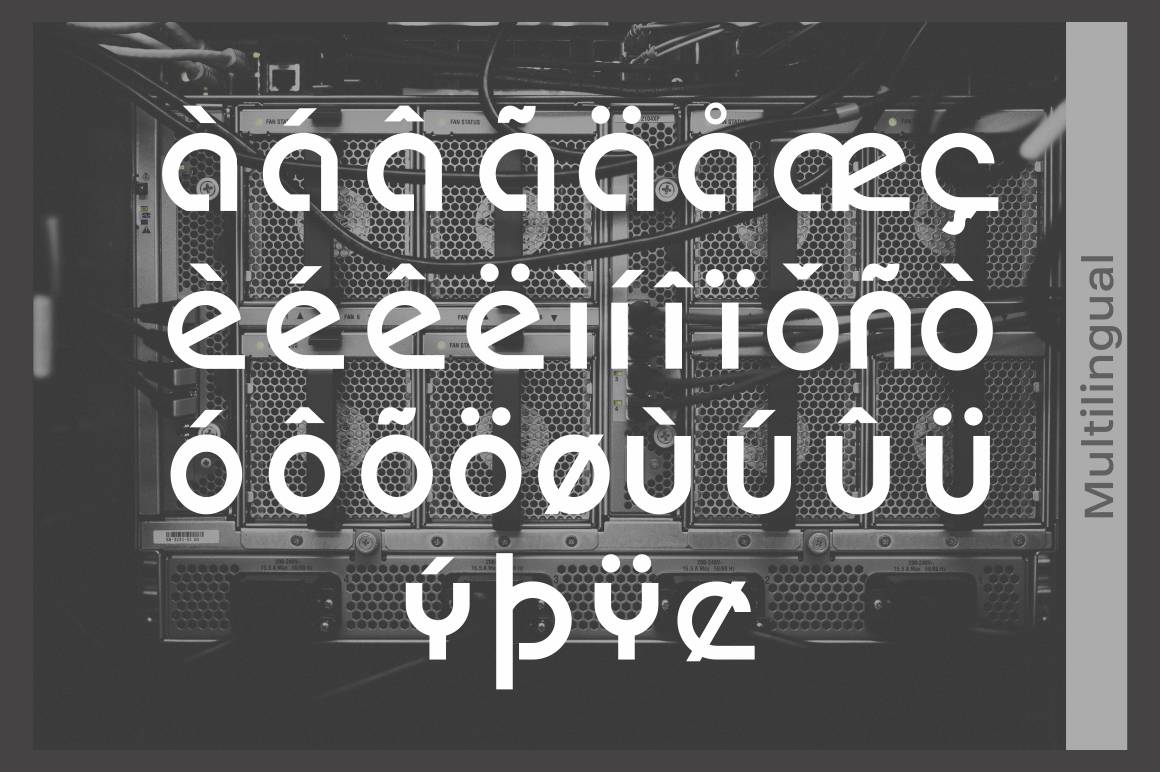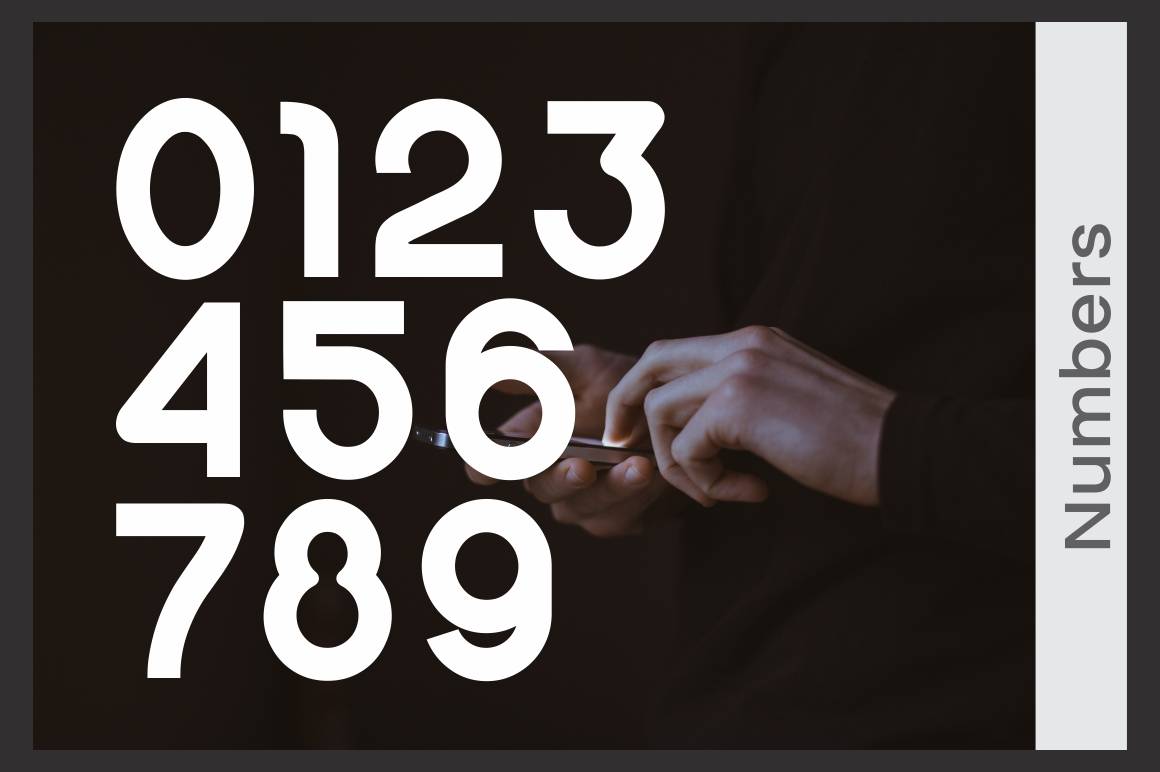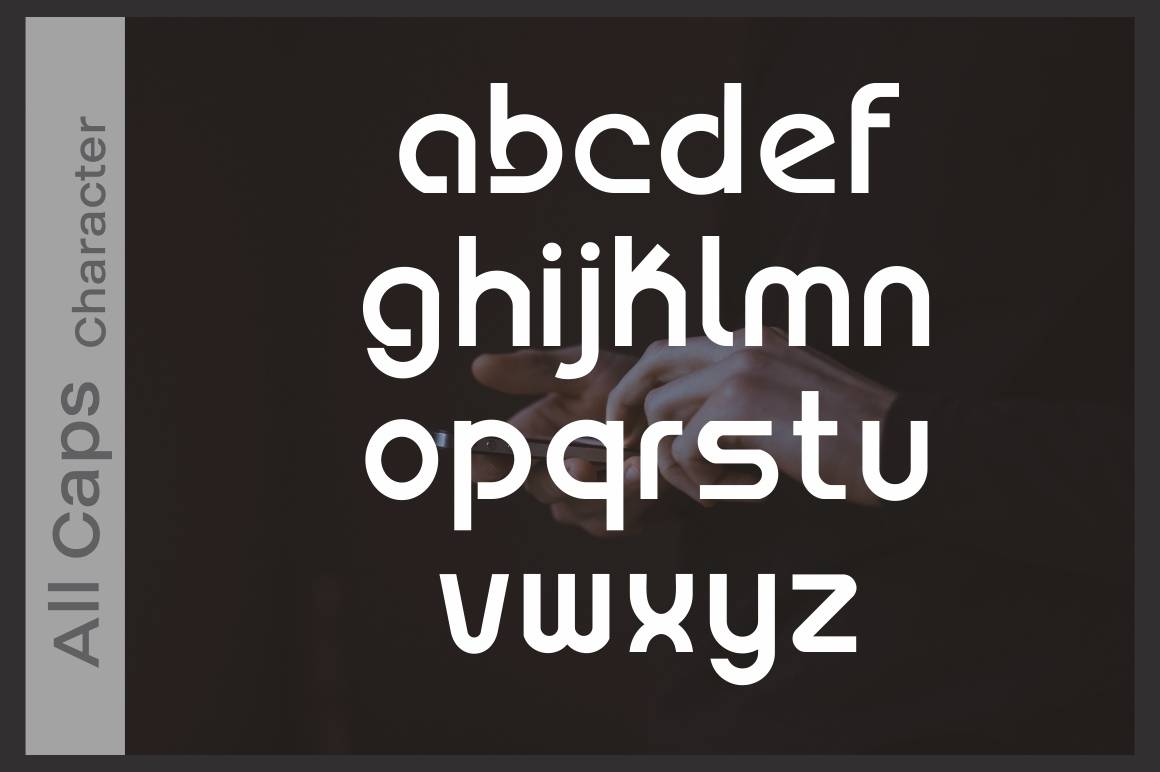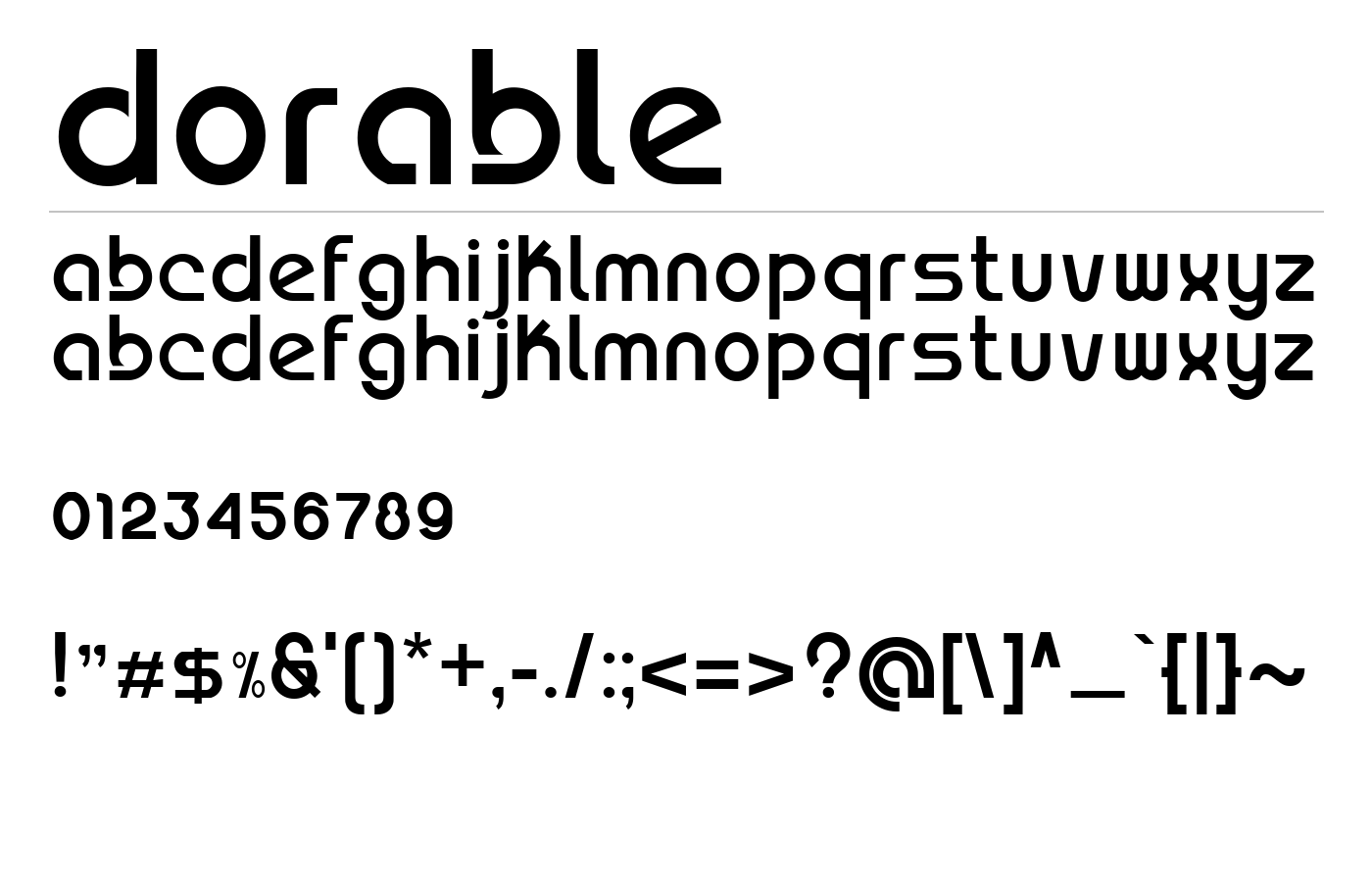
Dorable is a modern sans serif font with a friendly, geometric style characterized by its clean lines, medium weight, and wide, open forms. Its unique letter shapes, such as the double-story "a" and distinctive "g," combined with consistent stroke widths and playful curves, give it a contemporary yet approachable feel, ideal for branding, headlines, and creative projects that seek a stylish and inviting appearance.
Dorable
About Dorable
| Font family | Dorable |
| Release date | 2019-12-16 |
| Designer | Aldi Ramdan |